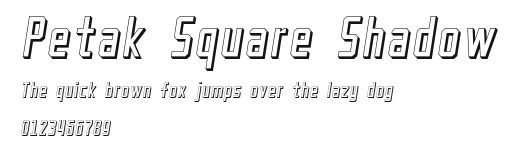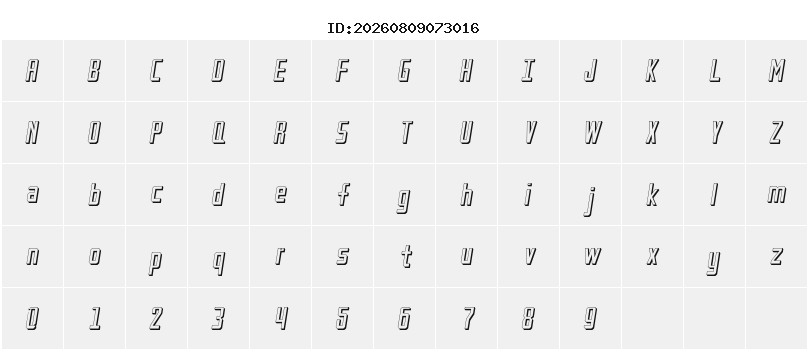
• Font Name: Petak Square Shadow
• Full Font Name: Petak Square Shadow Italic
• Designer: Rizki Alisaptamarza
About Petak Square Shadow.ttf
Petak Square Shadow.ttf is a modern, elegant sans-serif font designed for ultimate readability and visual harmony. Perfect for branding, headlines, web design, and print materials.